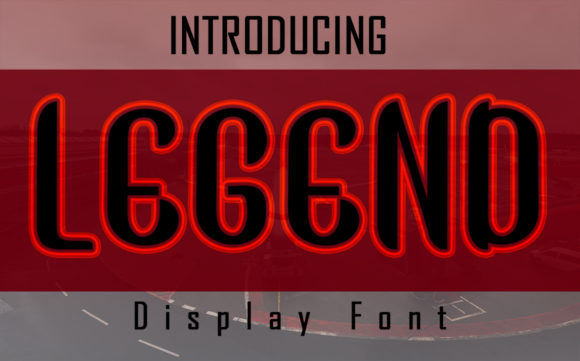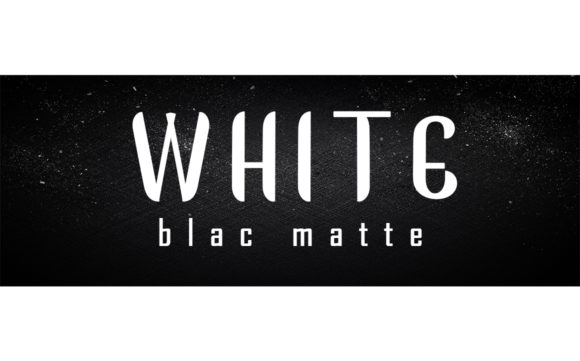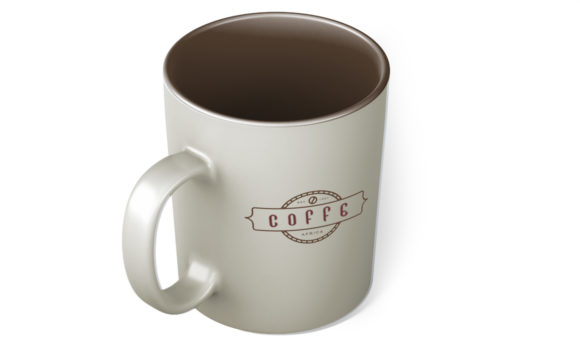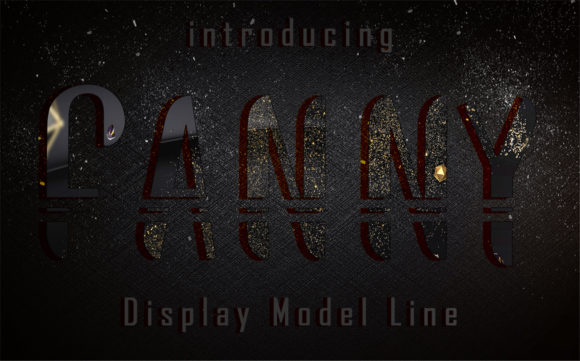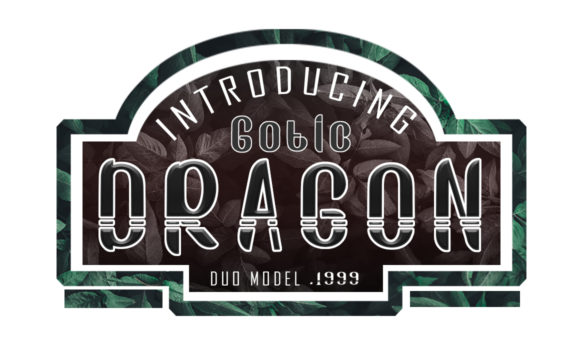
Gotic Dragon Font: Elevate Your Designs with a Bold yet Casual Display Font
In the realm of typography, a font can make or break the visual appeal of a design. For designers and crafters seeking a bold yet casual display font that exudes a clean feel, Gotic Dragon is an exceptional choice. This stunning typeface boasts a neat and beautiful arrangement of letters, making it perfect for both formal and non-formal designs.
What is Gotic Dragon Font?
Gotic Dragon is a display font that strikes the perfect balance between boldness and casual elegance. Its clean and minimalist design makes it an excellent addition to various design projects, from logos and branding materials to posters, flyers, and digital media. The font’s unique arrangement of letters creates a visually appealing rhythm, making it easy to read and understand.
Key Features of Gotic Dragon Font
• Bold yet Casual: Gotic Dragon’s bold design ensures that your text stands out, while its casual feel keeps it approachable and friendly.
• Clean and Minimalist: The font’s clean lines and minimalist design make it perfect for modern designs that require a touch of sophistication.
• Neat Arrangement of Letters: The beautiful arrangement of letters in Gotic Dragon creates a harmonious flow, making it easy to read and visually appealing.
• Versatile: This font is suitable for both formal and non-formal designs, making it a versatile addition to your typography collection.
Uses of Gotic Dragon Font
Gotic Dragon’s versatility makes it an excellent choice for various design projects, including:
• Logos and Branding: Create a bold and memorable logo with Gotic Dragon, perfect for businesses and entrepreneurs looking to make a statement.
• Posters and Flyers: Use Gotic Dragon to create eye-catching posters and flyers that grab attention and communicate your message effectively.
• Digital Media: Enhance your digital media, such as social media graphics, website headers, and email newsletters, with Gotic Dragon’s clean and modern design.
• Crafting and DIY Projects: Add a touch of personality to your crafting and DIY projects, such as handmade cards, gift tags, and scrapbooking, with Gotic Dragon’s unique and stylish design.
Why Choose Gotic Dragon Font?
With so many fonts available, why choose Gotic Dragon? Here are a few compelling reasons:
• Unique Design: Gotic Dragon’s distinctive design sets it apart from other fonts, ensuring that your designs stand out from the crowd.
• Ease of Use: The font’s clean lines and simple design make it easy to use, even for those without extensive design experience.
• High Versatility: Gotic Dragon’s versatility makes it suitable for a wide range of design projects, saving you time and effort in searching for multiple fonts.
In conclusion, Gotic Dragon is an exceptional bold yet casual display font that can elevate your designs to new heights. Its clean feel, neat arrangement of letters, and versatility make it an excellent addition to your typography collection. Whether you’re a designer, crafter, or DIY enthusiast, Gotic Dragon is sure to become a go-to font for your design projects.